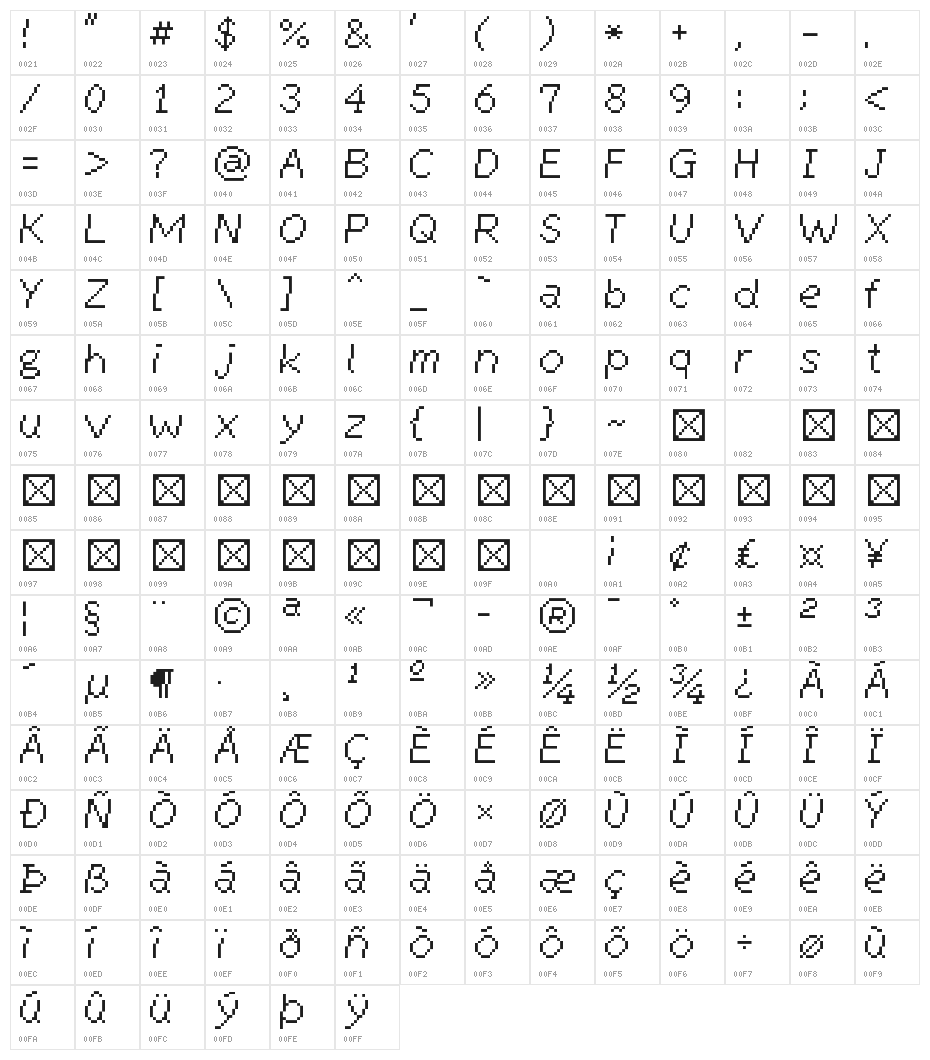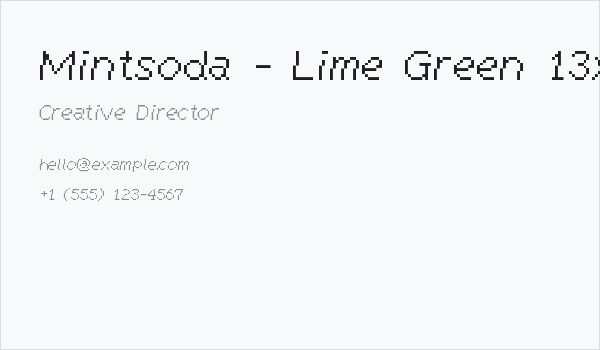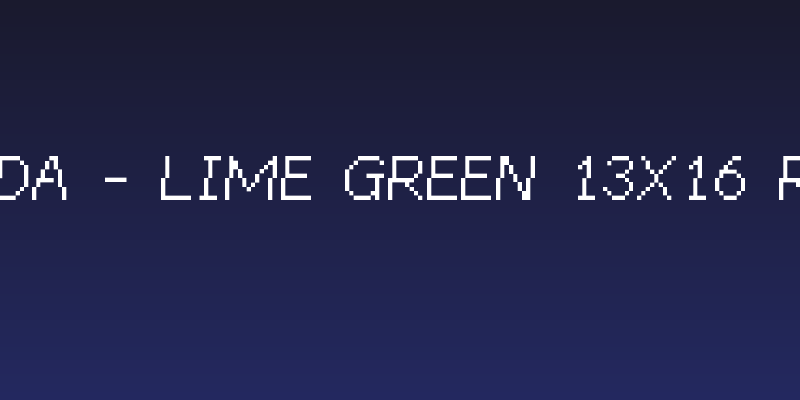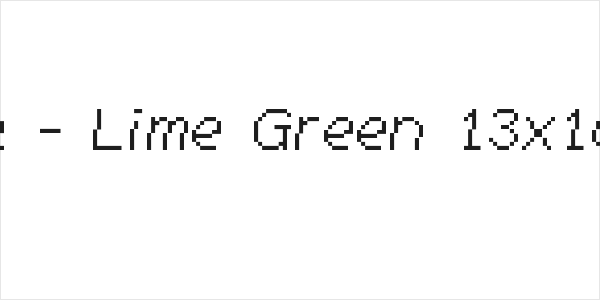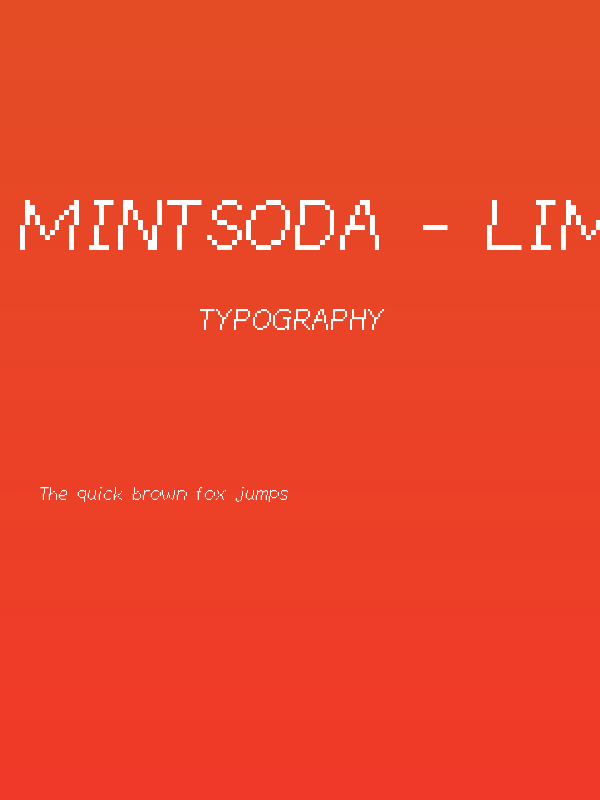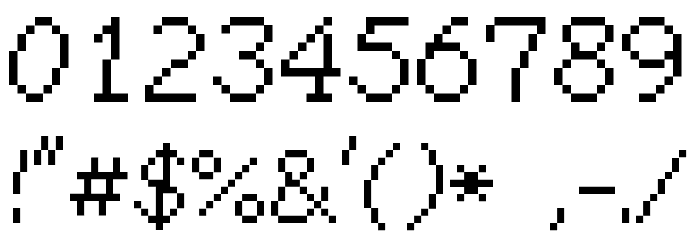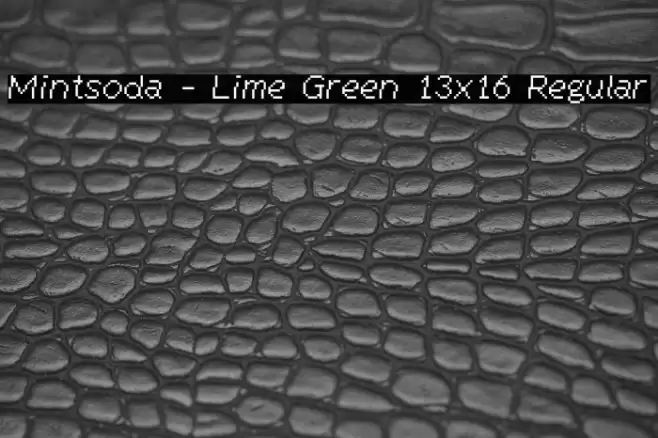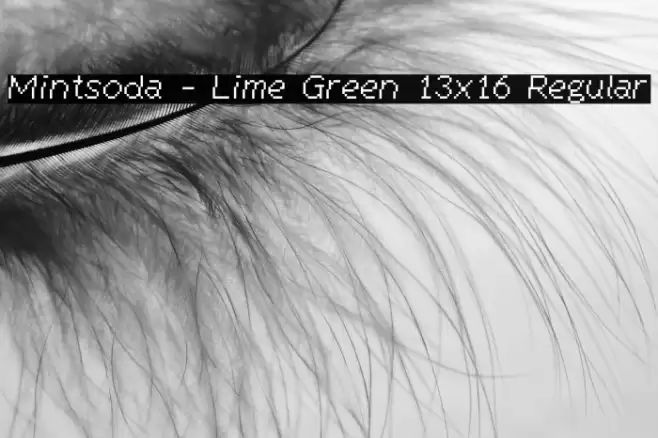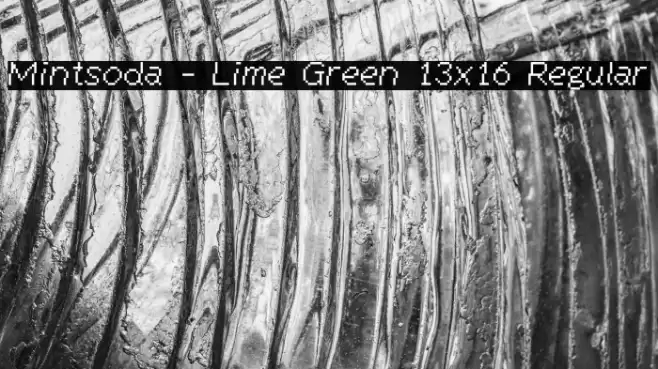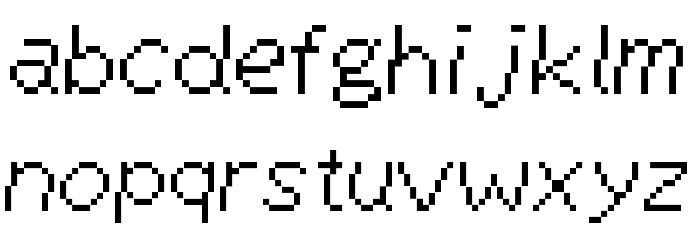
Mintsoda - Lime Green 13x16 Regular Font
Mintsoda - Lime Green 13x16 Regular Description
This font features a pixelated, retro style reminiscent of early digital displays and video games. Each character is constructed with a grid-like precision, giving it a blocky and geometric appearance. The uppercase and lowercase letters maintain a consistent height, contributing to a uniform and structured look. The numbers and special characters follow the same design principles, ensuring a cohesive visual experience. The font's simplicity and clarity make it highly legible, even at smaller sizes. Its nostalgic aesthetic is ideal for projects that aim to evoke a sense of vintage digital charm.